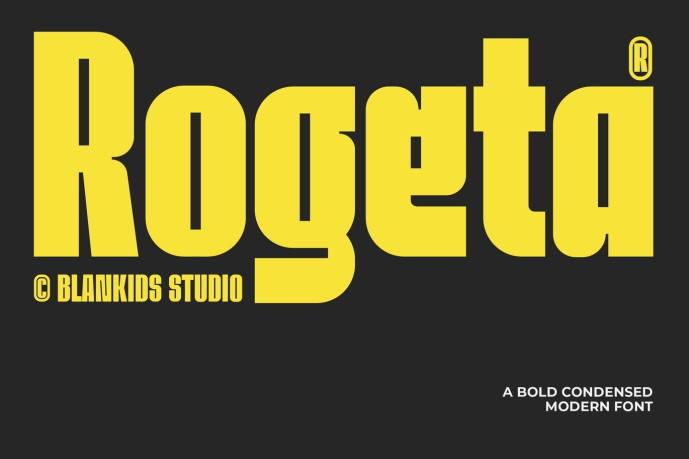
Rogeta Font is a modern, condensed, and bold display typeface designed for strong visual impact. With its large proportions, clean geometric shapes, and powerful character structure, Rogeta is perfect for projects requiring eye-catching typography.
Whether you’re creating posters, sports branding, event promotions, album covers, packaging, social media graphics, or bold headlines, Rogeta ensures a confident and distinctive presence. Its compact form allows you to fit more content into smaller spaces while maintaining excellent readability and visual impact.